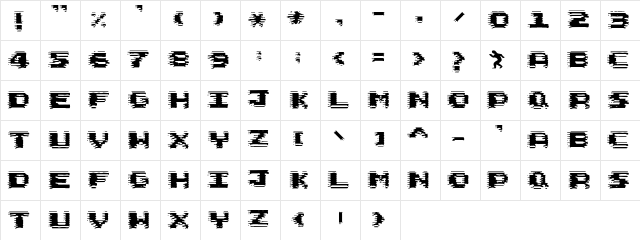
Circuit Scraping Normal
Design Context for Circuit Scraping Typeface
Circuit Scraping is a composed and adaptable typeface that performs quietly and consistently across a wide range of design contexts.
Pro Tip: Use Circuit Scraping in both headline and body roles to test its range before committing to a single application.